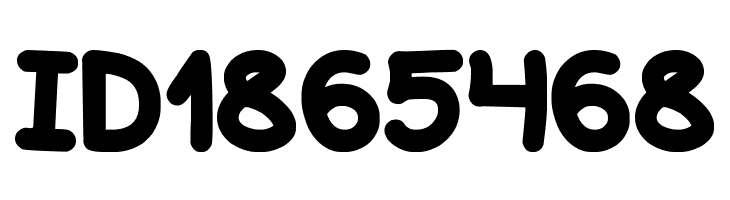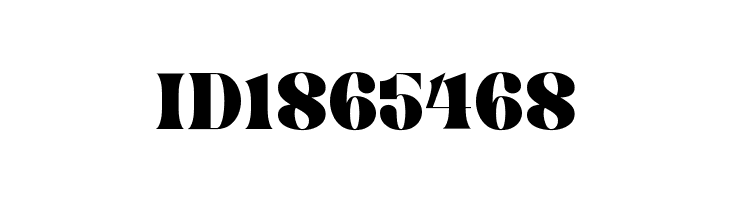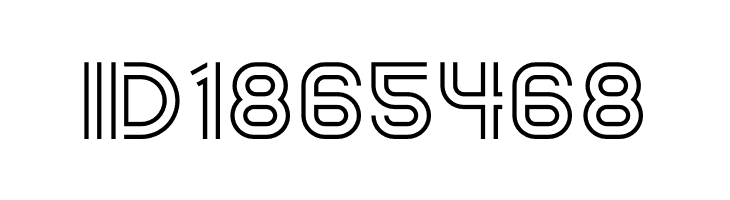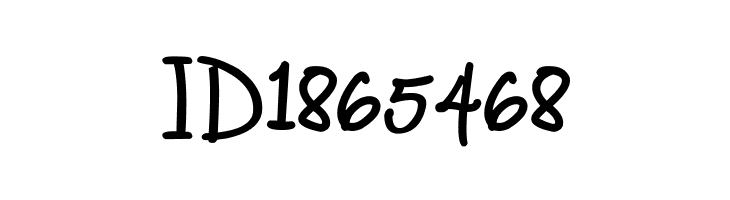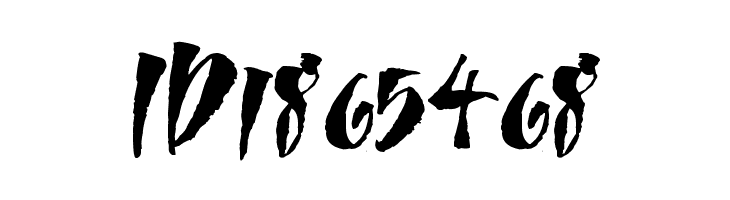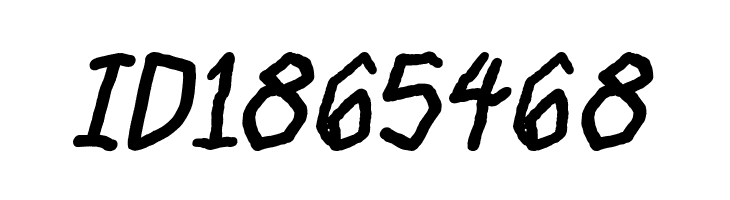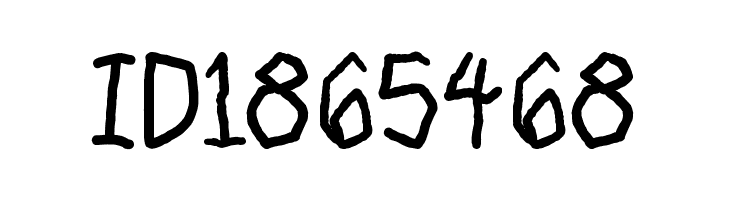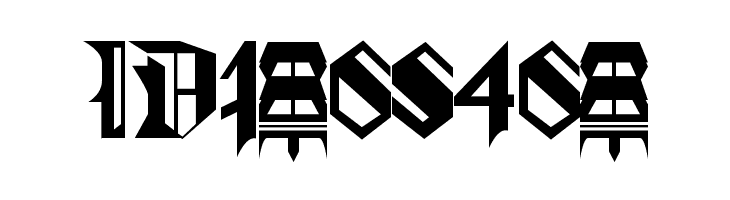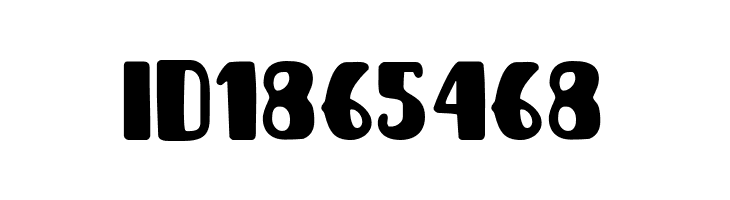
• Good Sunday
A bold, playful font with rounded edges and a modern-retro style.
• Goodmarker
A playful, handwritten font with smooth, flowing strokes and a casual style.
• Goombella
A bold, expressive brush-style font with dynamic, artistic strokes.
• goon spectre TBS
A playful, hand-drawn font with wavy lines and a quirky, energetic style.
• goon spectre TBS Bold Italic
A bold, italic, hand-drawn font with a playful and dynamic style.
• Goovy Modice
A bold, retro-inspired font with high contrast and playful flourishes.
• Gope
A modern, geometric font with double-line strokes and art deco influences.
• Gordita Fuerte St
A bold, playful font with rounded, thick letterforms and a friendly vibe.
• Gotham Lullaby
• GothamLullaby